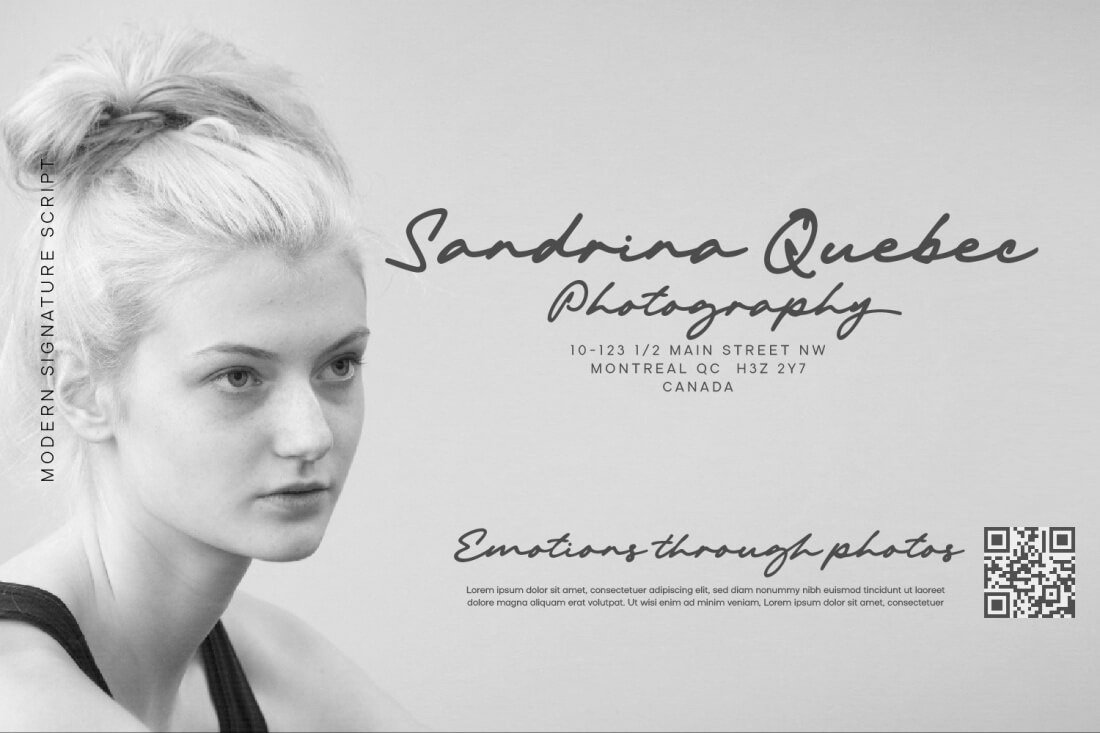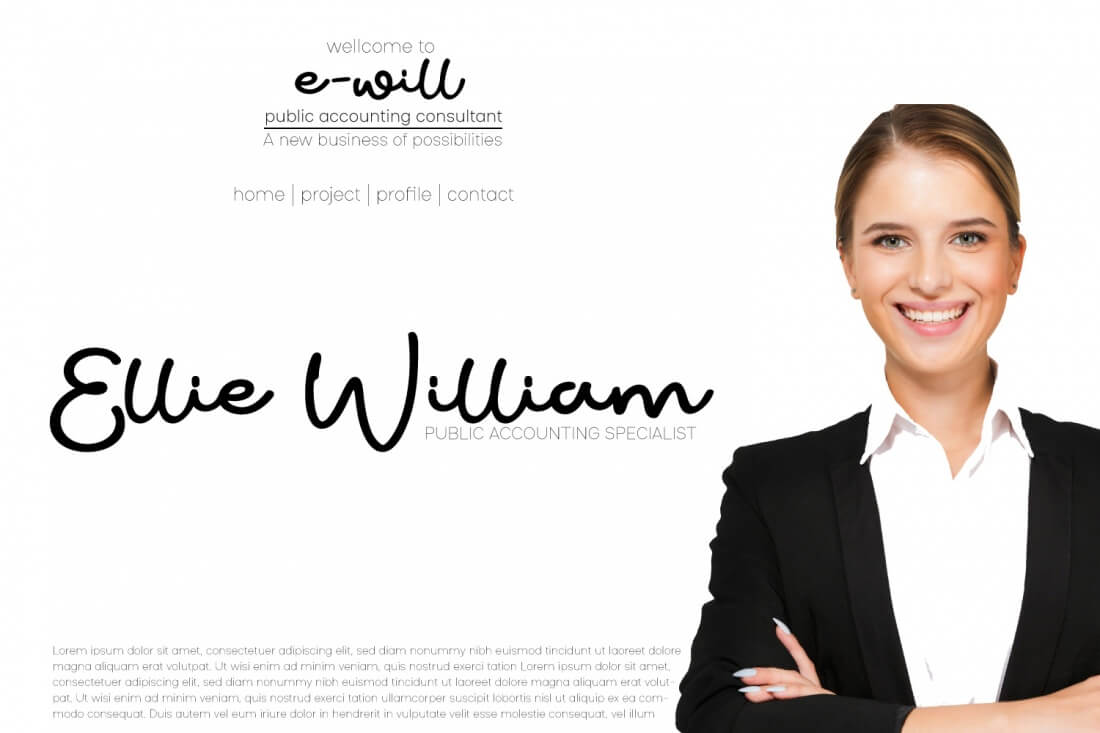
Exclusive: Cititype Super Script Collection II Font Bundle
Introducing another Mighty Deals exclusive: Super Script Collection II, a bundle of 17 fonts from 13 script typefaces that will widen your range of styles and enhance each design’s impact.
From organic and whimsical scripts, to bold brush and handwriting fonts, this bundle includes a variety of artistic styles that will elevate invitation templates, logos, images, and more.
This bundle and its original styles will complement and emphasize your designs, so add these to your toolkit today!
Introducing another Mighty Deals Exclusive: Super Script Collection II, a bundle of 17 fonts from 13 script typefaces that will widen your range of styles and enhance each design’s impact.
From organic and whimsical scripts, to bold brush and handwriting fonts, this bundle includes a variety of artistic styles that will elevate invitation templates, logos, images, and more.
Casual fonts like Blugie and Wordwalker are perfect for nostalgic logos and unique branding, while Rushmore and Thoriq emphasize classic and elegant themes.
This bundle and its original styles will complement and emphasize your designs, so add these to your toolkit today.
- 17 fonts from 13 script typefaces;
- Loads of OpenType features – swashes and alternates;
- Excellent choice for a variety of printed projects – watermarks, wedding invitations, logos, business cards, tags, T-shirts, etc.;